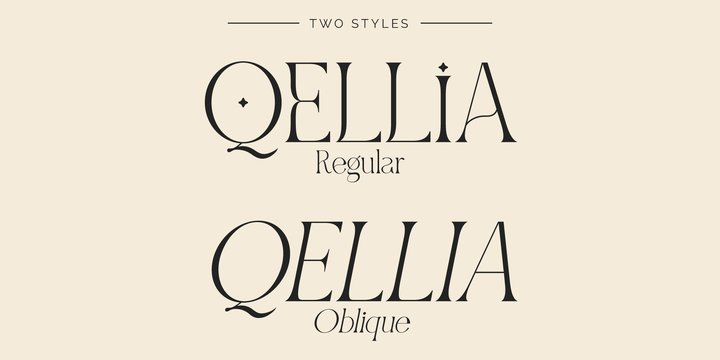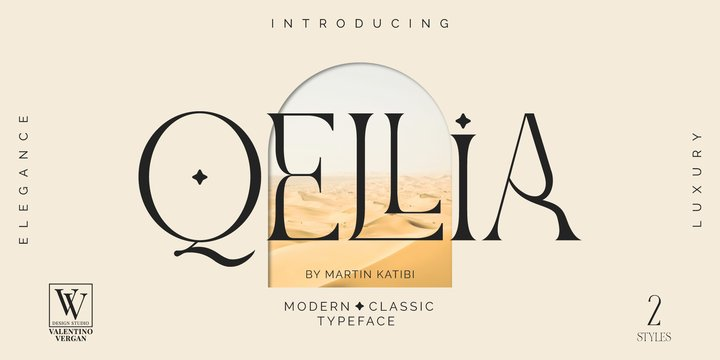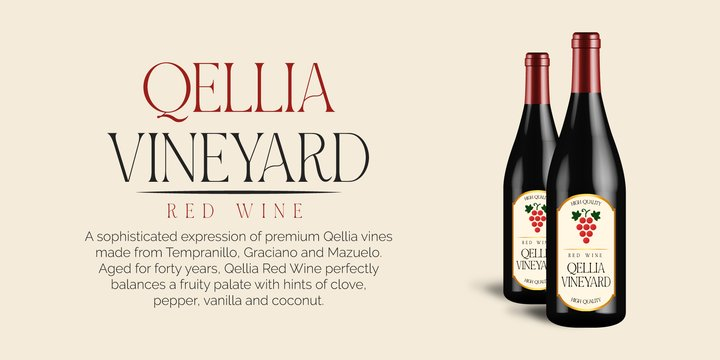
Qellia Font
Qellia FontIntroducing “Qellia” – A brand new modern classic ligature typeface.
Qellia is an exquisitely elegant modern serif, with beautiful ligatures and alternates. Qellia is a combination between classic and modern font styles, this gives Qellia a unique look and feel. Qellia comes in two styles, Regular and Oblique.
Qellia was built with OpenType features that include creative ligatures and unique alternative letters. Qellia also comes with multilingual support for languages such as: Danish, English, Finnish, French, German, German (Switzerland), Norwegian Bokmål, Norwegian Nynorsk, Portuguese, Spanish, Swedish, Swiss German.
Qellias sophisticated design makes it a very versatile font, covering a wide range of projects such as: brand packaging, brochures, magazines, logos, poster design, Instagram templates, wedding invitations, quotes, blogs, headers, social media, advertisements and much more.
If you a looking for something classic, modern, luxurious and chic for you next project, Qellia is the font for you.